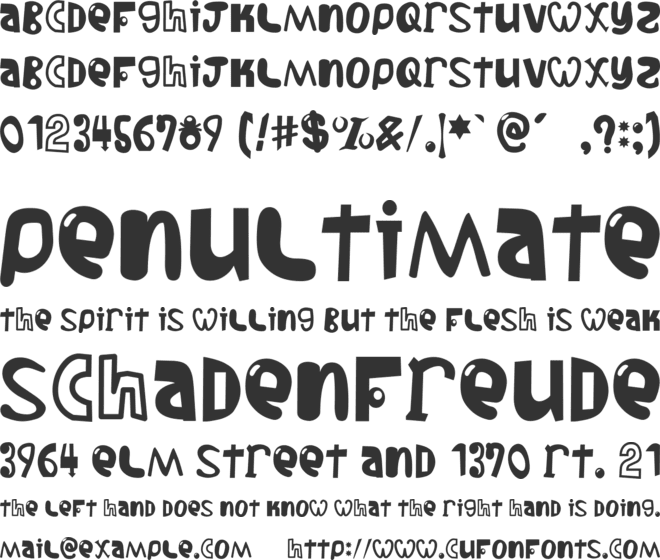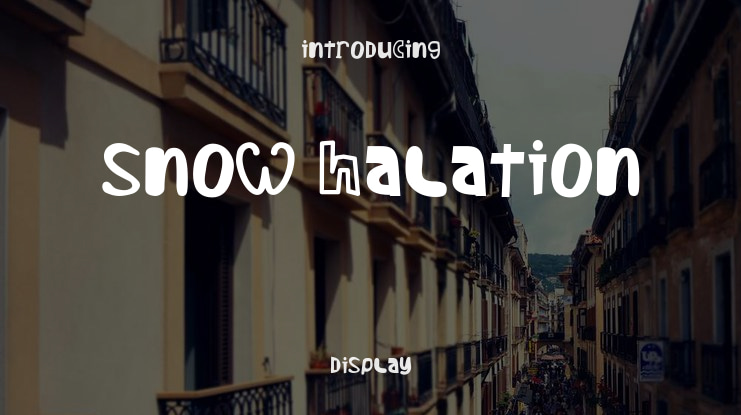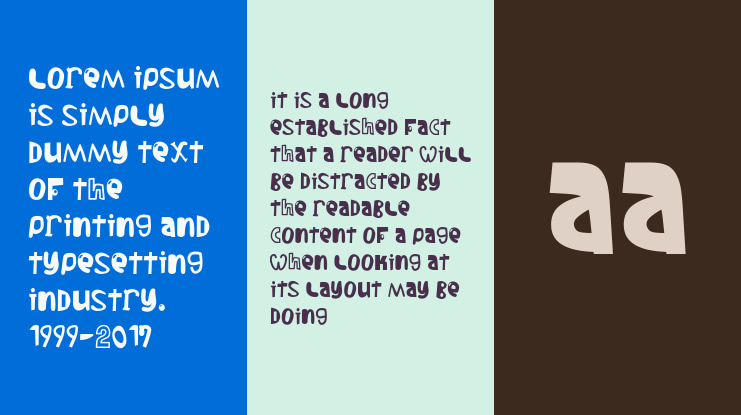
Snow Halation Font
Another mixed-up font originally created in 2020, but it now has Hungarian support. Snow Halation is a strange mixed-up display font where its title is a song in the television anime series Love Live! School Idol Project.